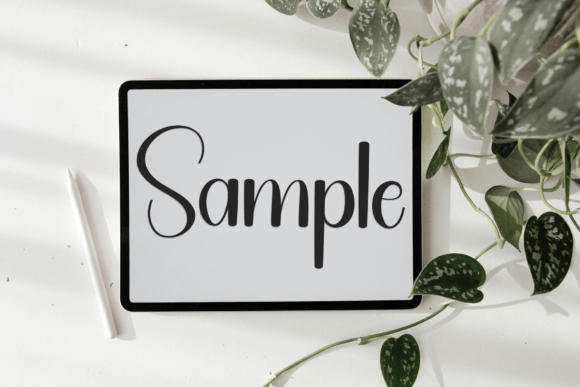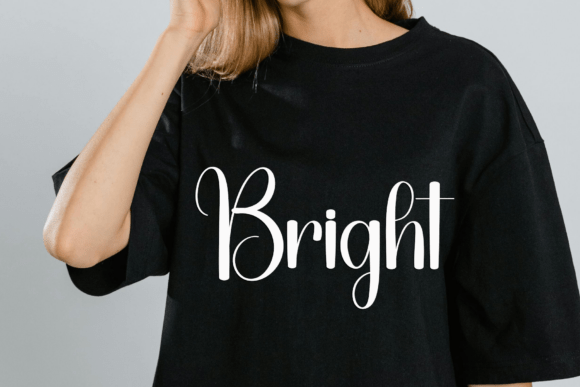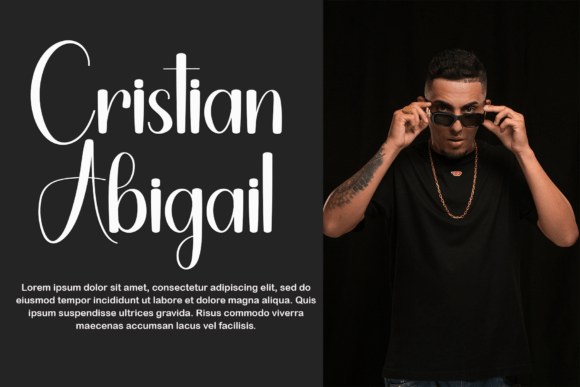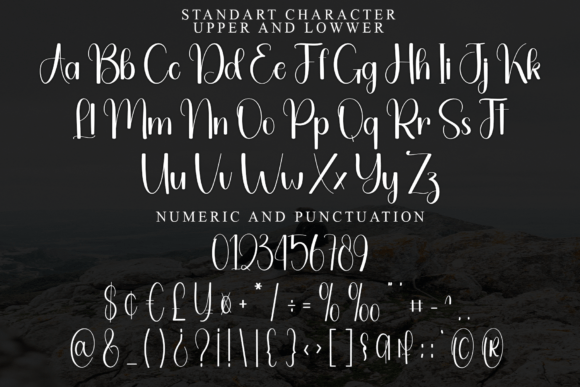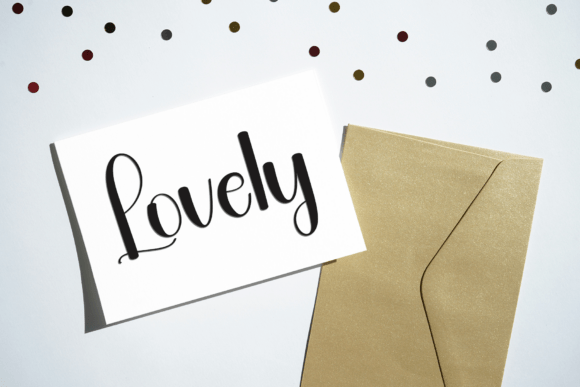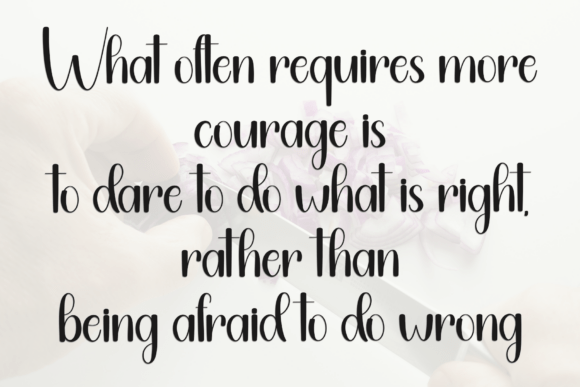
Introducing the Birthday Calendar Font: Elevate Your Designs with Elegance
Are you searching for a font that exudes sophistication and charm? Look no further than the Birthday Calendar Font, an elegant and flowing script font that captures the beauty of hand-lettered calligraphy with a modern twist. This stunning font is perfect for designers and crafters seeking to add a touch of luxury to their projects.
The Beauty of Hand-Lettered Calligraphy
The Birthday Calendar Font is inspired by the art of hand-lettered calligraphy, a timeless and classic style that has been coveted for centuries. With its smooth curves and graceful strokes, this font brings a level of sophistication and elegance to any design. Whether you’re creating wedding invitations, logos, branding materials, or social media graphics, this font is sure to impress.
The Birthday Calendar Font is incredibly versatile, making it suitable for a wide range of projects. Here are just a few ideas to get you started:
- Wedding Invitations: Add a touch of romance and whimsy to your wedding invitations with this beautiful font. It’s perfect for creating custom invitations, save-the-date cards, and thank-you notes.
- Logos and Branding: Elevate your brand with a sophisticated logo that showcases the Birthday Calendar Font. This font is ideal for businesses seeking to convey a sense of luxury, elegance, and refinement.
- Social Media Graphics: Create stunning social media graphics that stand out from the crowd with this beautiful font. From Facebook posts to Instagram stories, this font is sure to add a touch of class to your online presence.
- Crafting and DIY Projects: If you’re a crafter or DIY enthusiast, you’ll love the Birthday Calendar Font. Use it to create custom signs, banners, and other decorative items for your home or as gifts.
What Sets the Birthday Calendar Font Apart
So, what makes the Birthday Calendar Font so special? Here are just a few features that set it apart:
- Elegant and Flowing: The Birthday Calendar Font features smooth, flowing curves that give it a sense of movement and elegance.
- Hand-Lettered Calligraphy: This font is inspired by the art of hand-lettered calligraphy, giving it a unique and personal touch.
- Modern Twist: While the Birthday Calendar Font is inspired by traditional calligraphy, it also has a modern twist that makes it perfect for contemporary designs.
- Versatile: This font is incredibly versatile, making it suitable for a wide range of projects and applications.
Tips for Using the Birthday Calendar Font
Here are a few tips for using the Birthday Calendar Font in your designs:
- Pair it with Other Fonts: The Birthday Calendar Font pairs beautifully with other fonts, such as sans-serif fonts or serif fonts. Experiment with different combinations to find the perfect look for your project.
- Use it in Headlines and Titles: The Birthday Calendar Font is perfect for headlines and titles, where its elegant curves and flowing strokes can really shine.
- Add a Personal Touch: Use the Birthday Calendar Font to add a personal touch to your designs. Whether you’re creating custom invitations or social media graphics, this font is sure to make your project stand out.